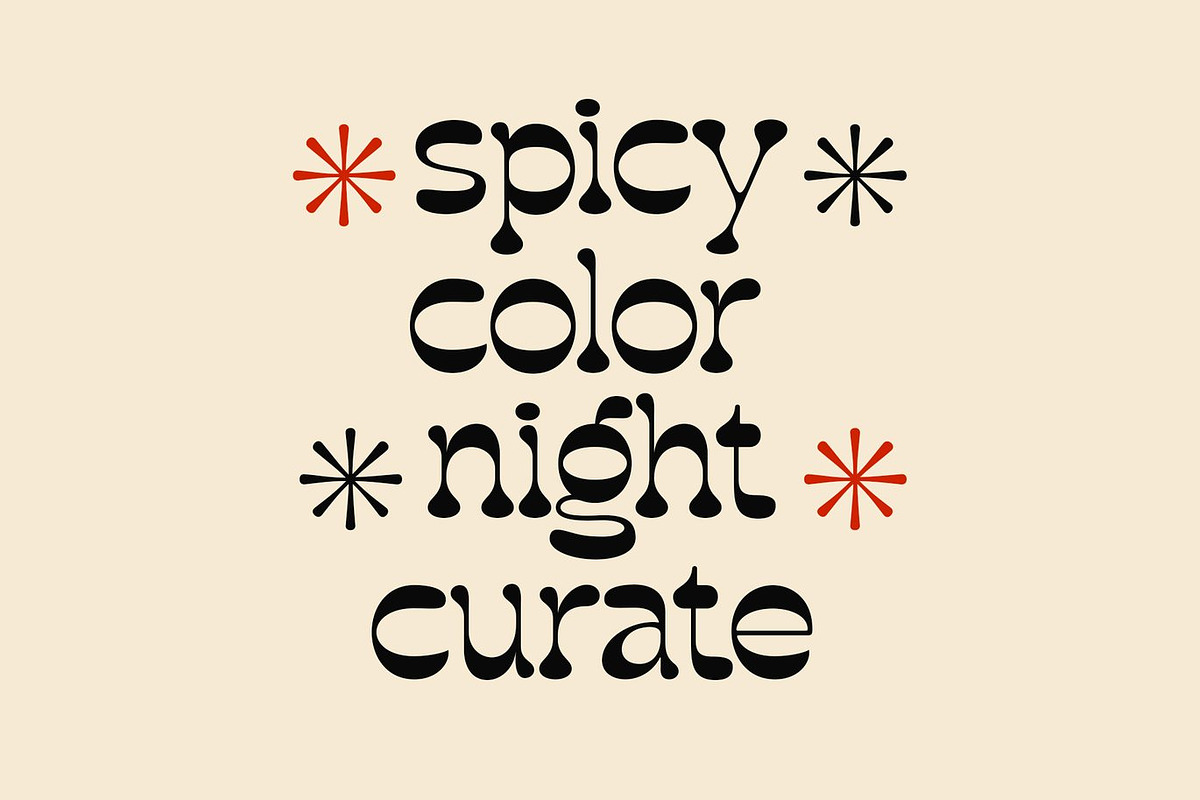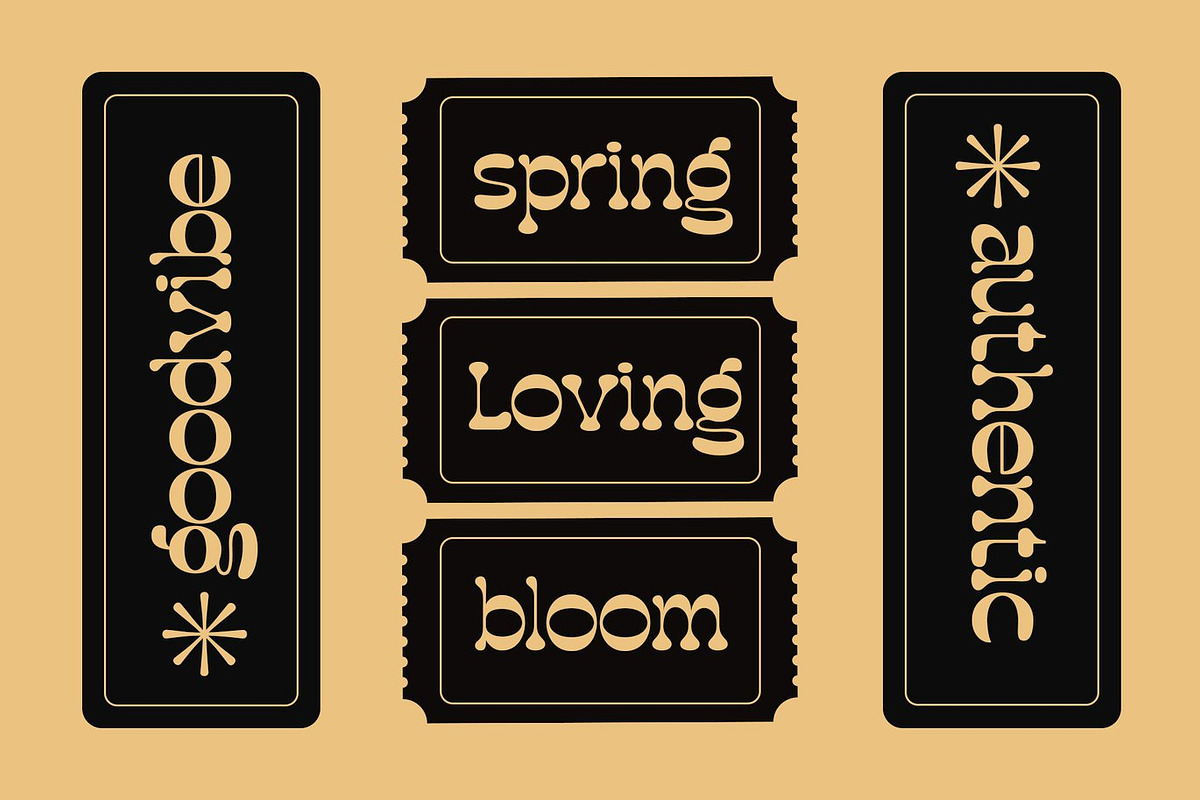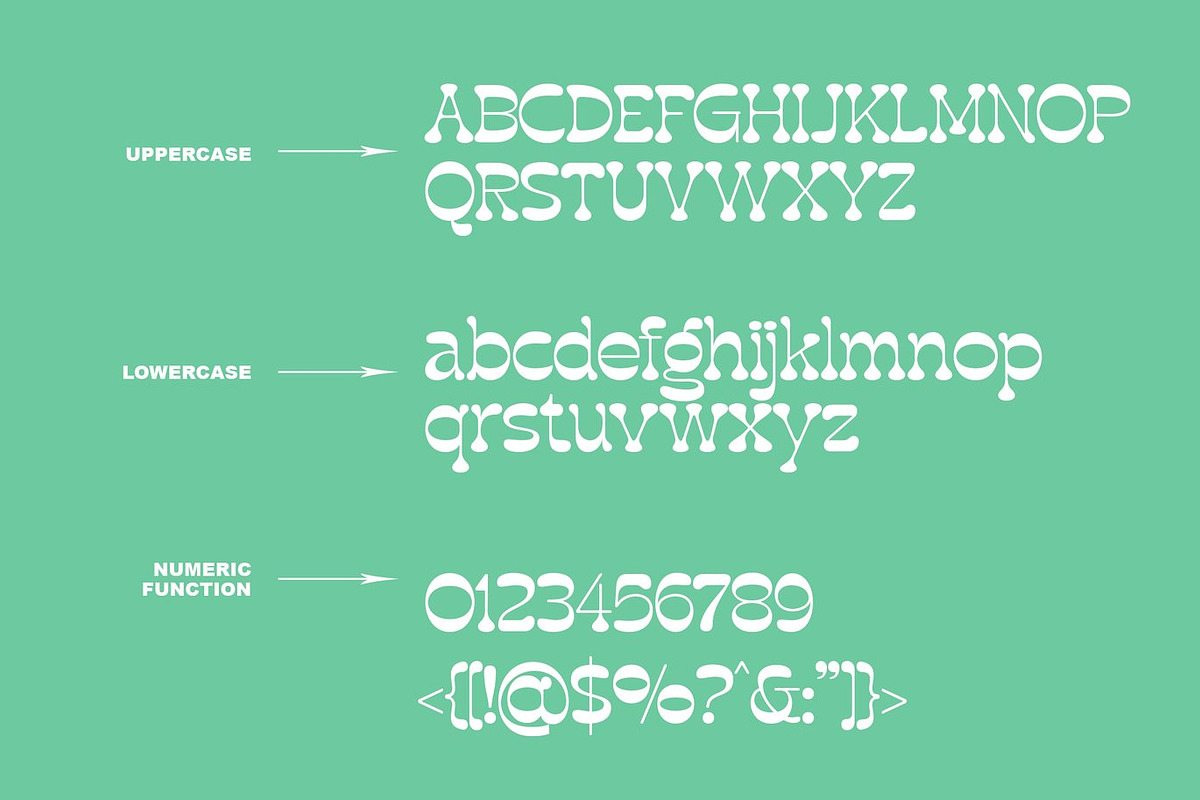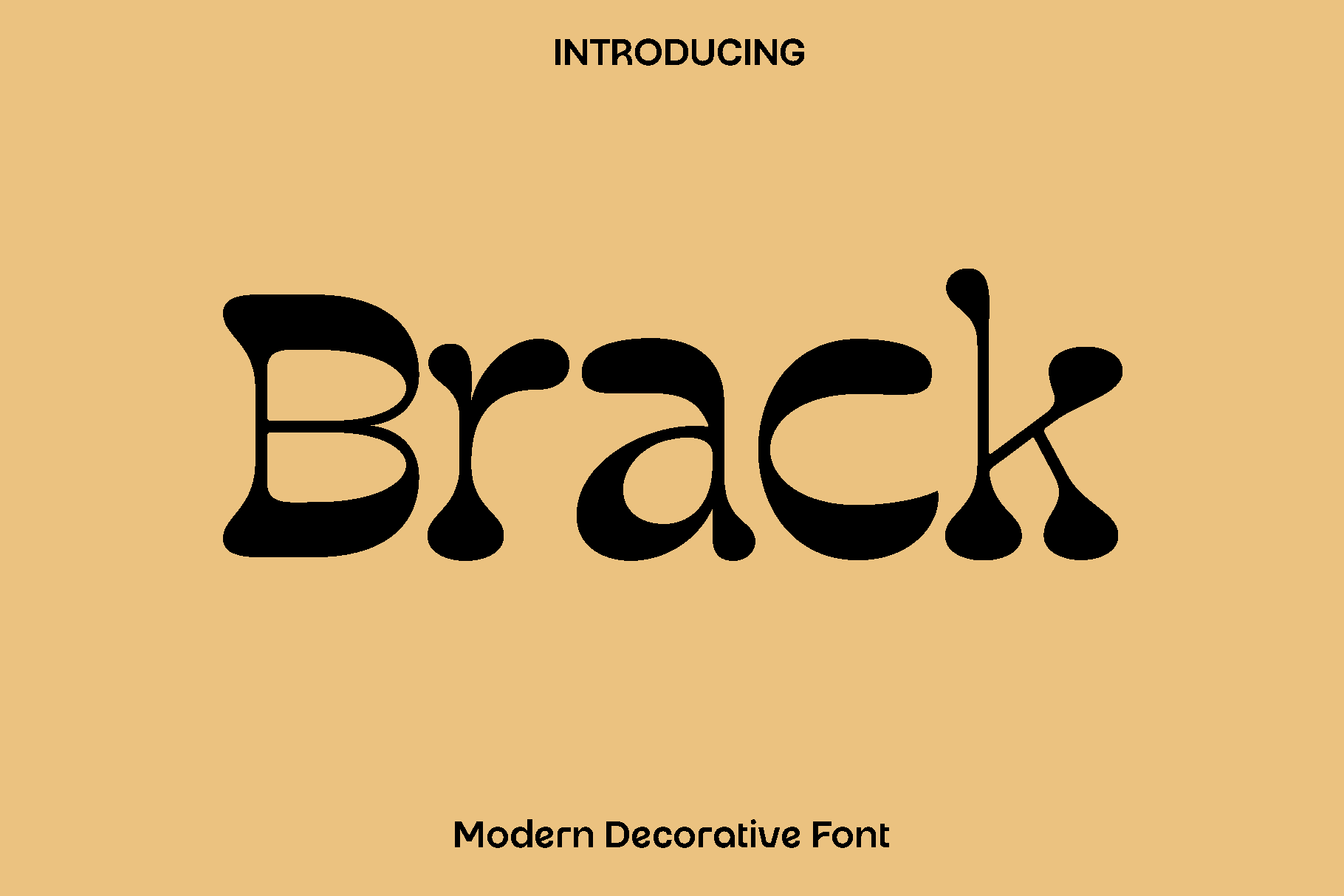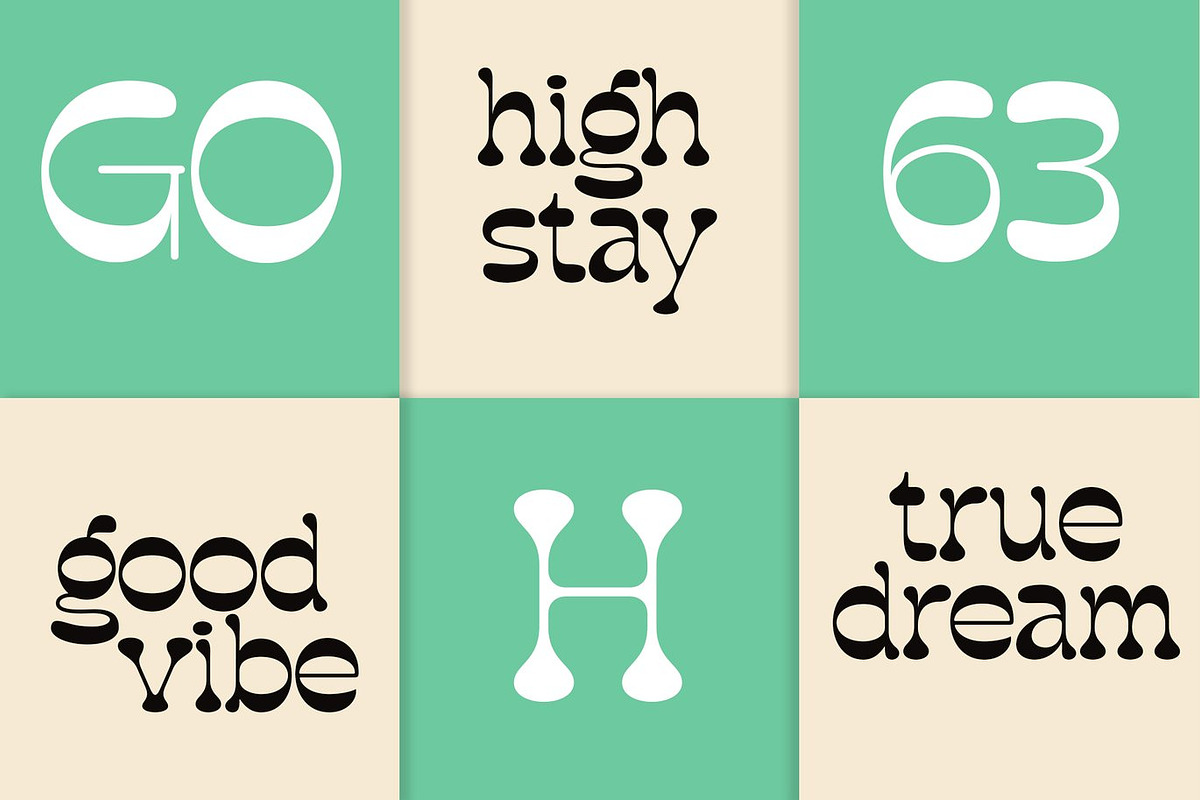
Brack - Modern Decorative Font
Brack is a modern typeface designed to bring clarity, balance, and personality to a wide range of creative projects. Created with thoughtful proportions and clean letterforms, Brack delivers a contemporary style that feels both professional and visually engaging. The design focuses on simplicity and readability while still offering distinctive character shapes that help your typography stand out.
Inspired by modern editorial and branding aesthetics, Brack is built to perform beautifully across many applications. It works perfectly for books, magazines, logos, brand identities, photography overlays, quotes, blog headers, posters, and advertising materials. Whether you are designing for print or digital media, Brack maintains a strong presence while keeping your content clear and stylish.
The font offers a balanced combination of functionality and creativity. Its carefully crafted ligatures and stylistic elements add a refined touch, allowing designers to create more expressive and polished typography. Brack feels modern, confident, and versatile, making it an excellent choice for designers who want a dependable typeface that adapts easily to different creative directions.
With its strong structure and elegant flow, Brack enhances both large headlines and detailed text layouts. It is a valuable addition to any designer’s toolkit, bringing modern style and professional quality to branding, editorial design, and visual storytelling.
Brack Font Features:
• Uppercase and lowercase characters
• Numerals and functional punctuation
• Stylistic characters and ligatures
• Multilingual support
• Clean and modern letterforms
• OpenType features